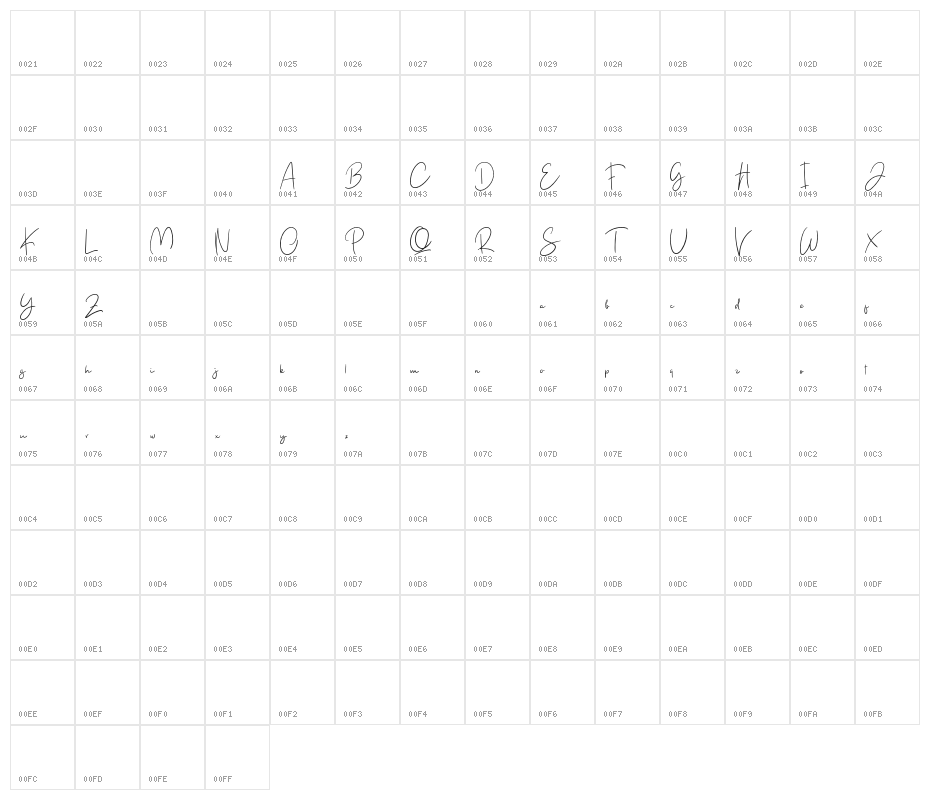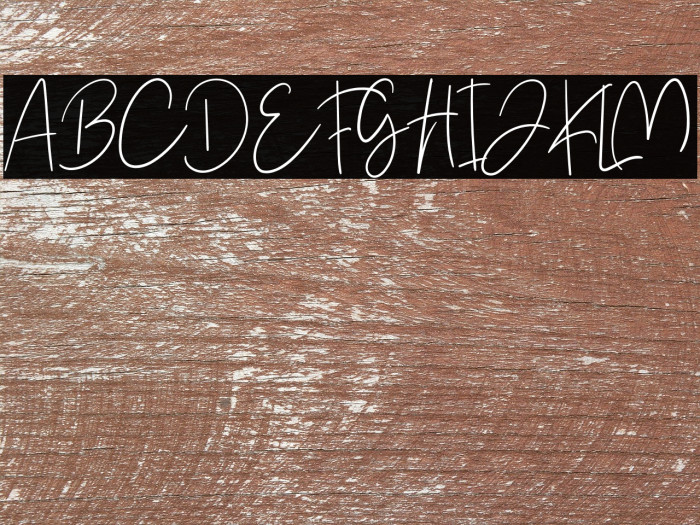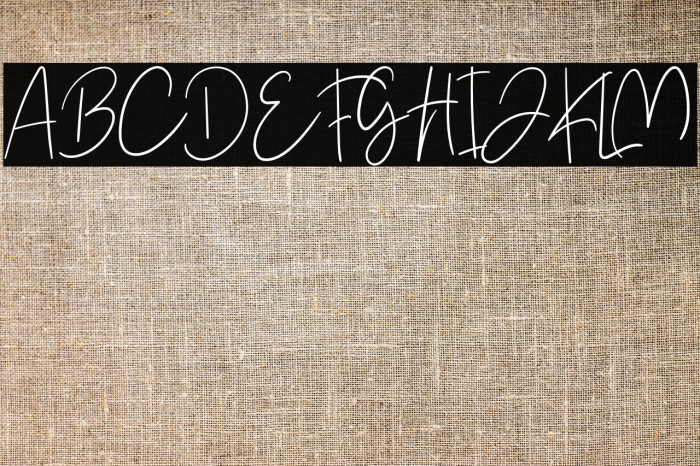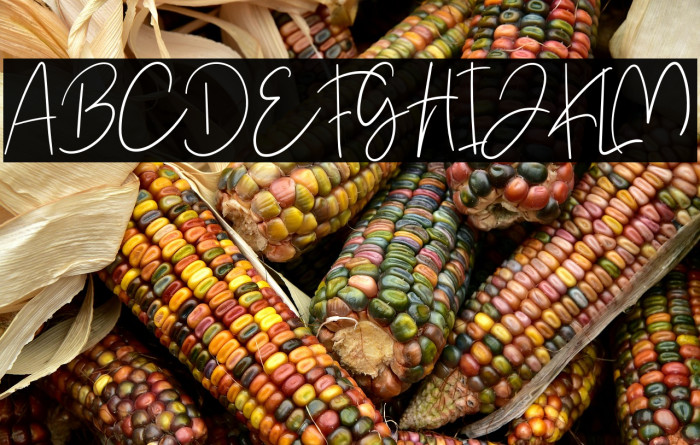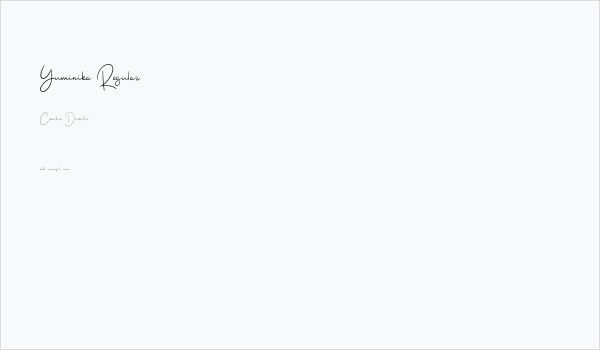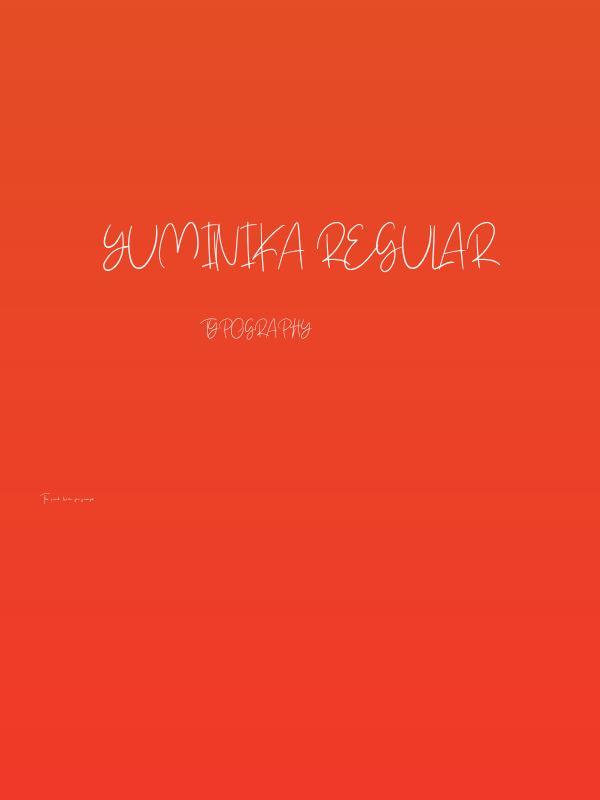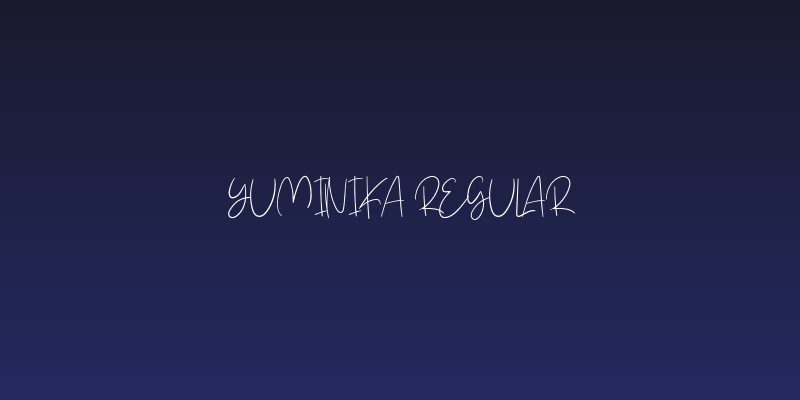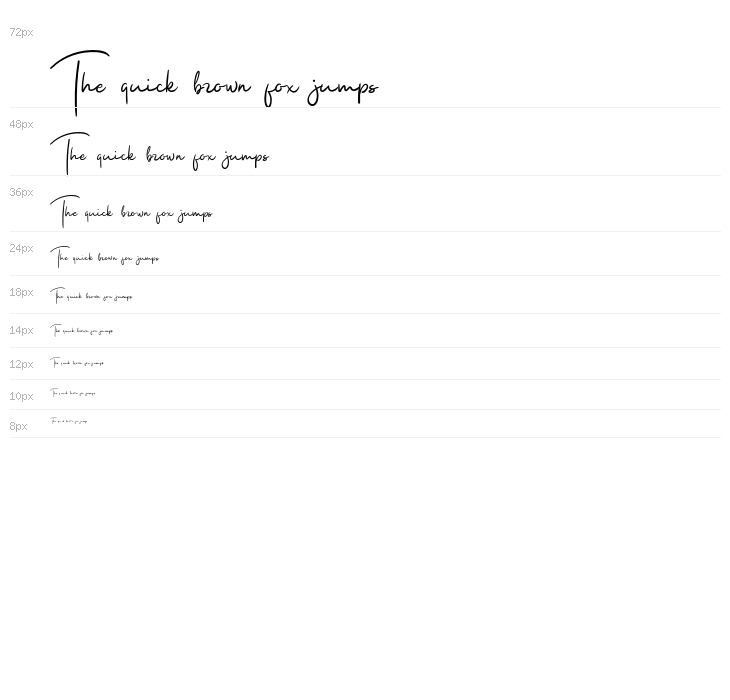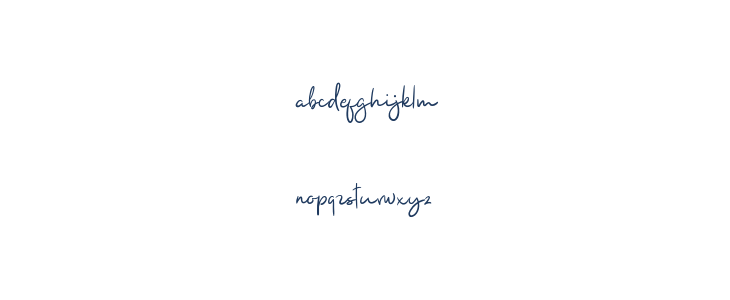
Yuminika Regular Font
Yuminika Regular Description
This font features a unique blend of elegance and modernity, characterized by its flowing, cursive style. The uppercase letters are tall and slender, with a slight slant that adds a dynamic feel. The lowercase letters are more compact, maintaining the cursive flow with smooth, connected strokes. The overall appearance is both sophisticated and approachable, making it suitable for a variety of design contexts. The font's thin lines and graceful curves give it a delicate, airy quality, while the consistent stroke width ensures readability.
| Use Case | Logos, Invitations, Personal branding |
| Proposed Projects | Ideal for wedding invitations, greeting cards, personal branding, and elegant logo designs. |